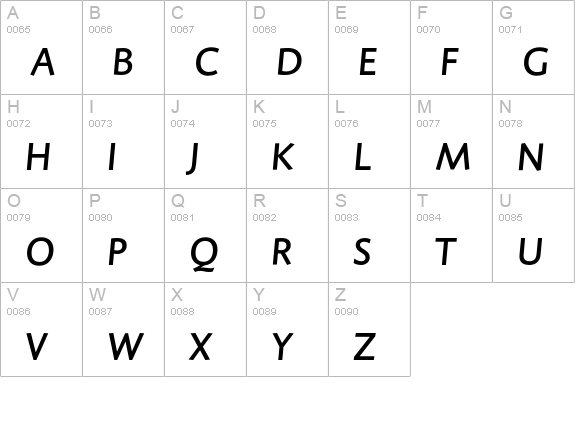
The DTLCaspariST-MediumItalic font exudes elegance and sophistication with its sleek and modern design. Its medium weight and italic styling make it perfect for adding a touch of style to any project, whether it be a professional presentation or a creative design endeavor. The graceful curves and unique letterforms of this font will surely captivate the eye and enhance the overall aesthetic of your work. And the best part? This stunning font is available for free download at FontsMarket.com, making it easily accessible for all designers and creatives looking to elevate their projects with a touch of class and flair. Don't miss out on the opportunity to enhance your designs with the DTLCaspariST-MediumItalic font - download it today and let your creativity soar!